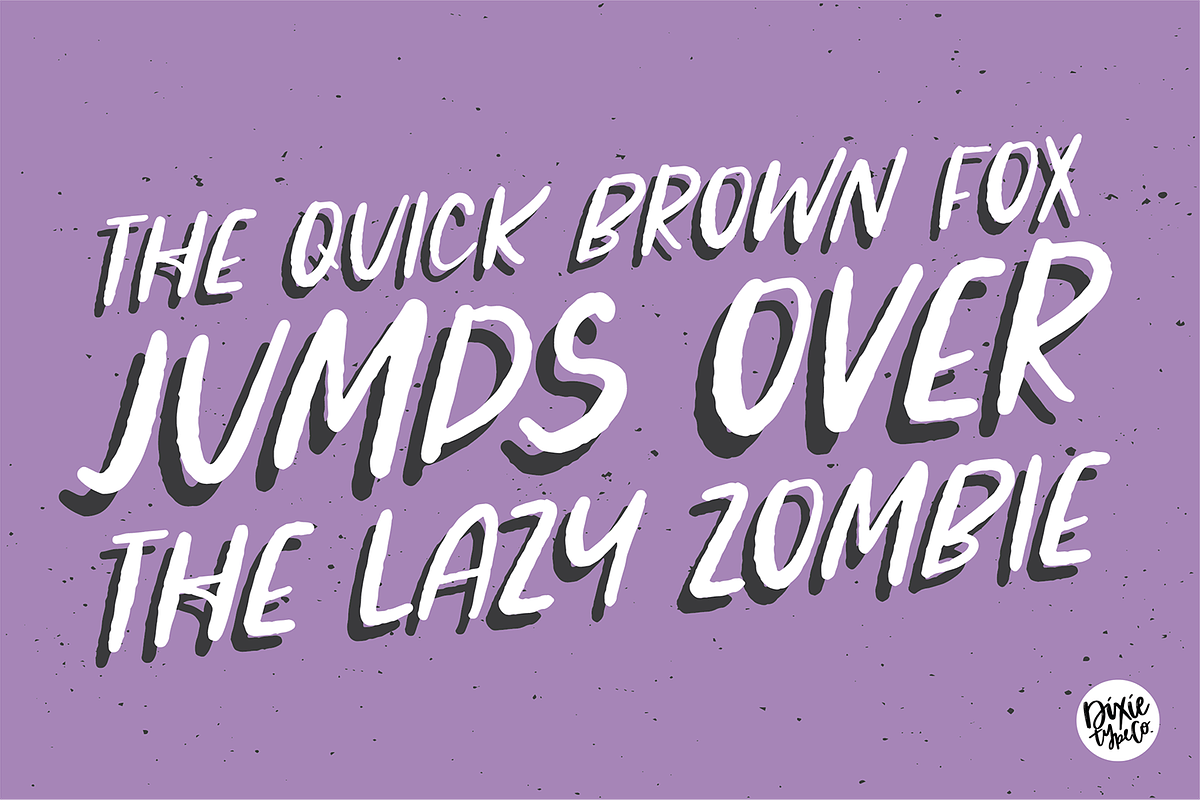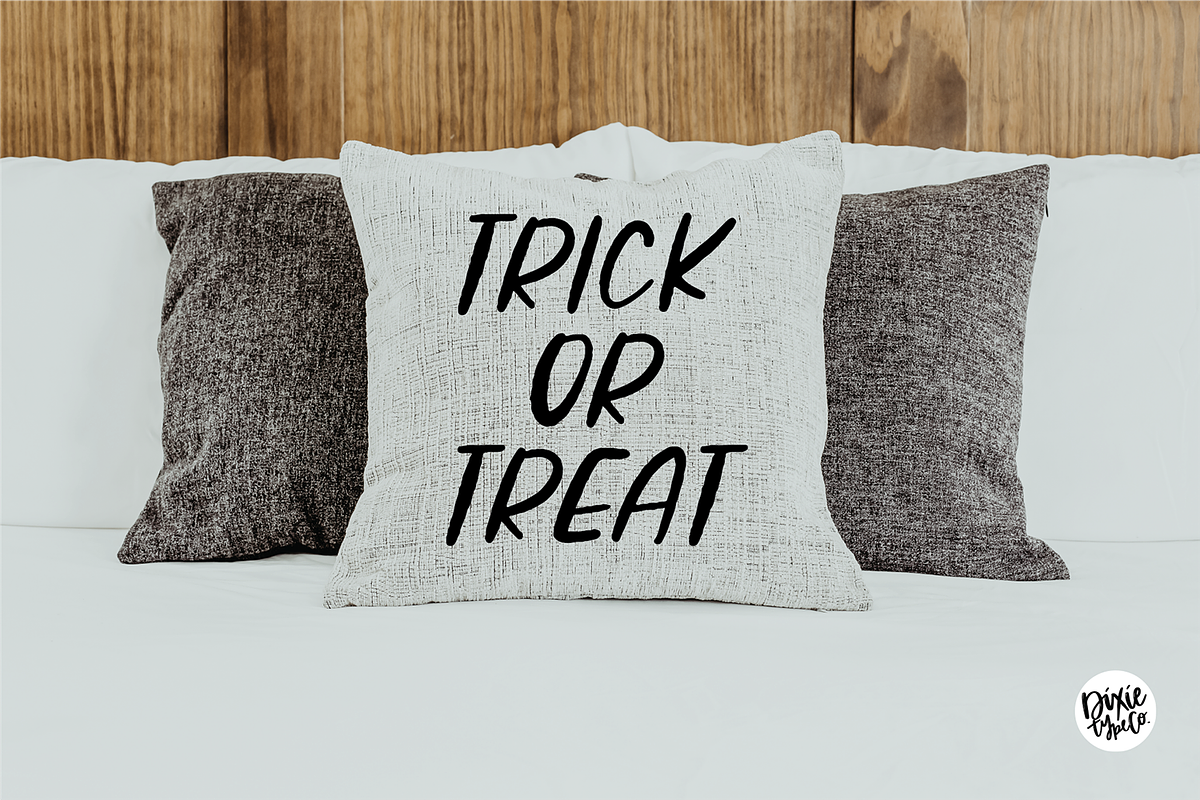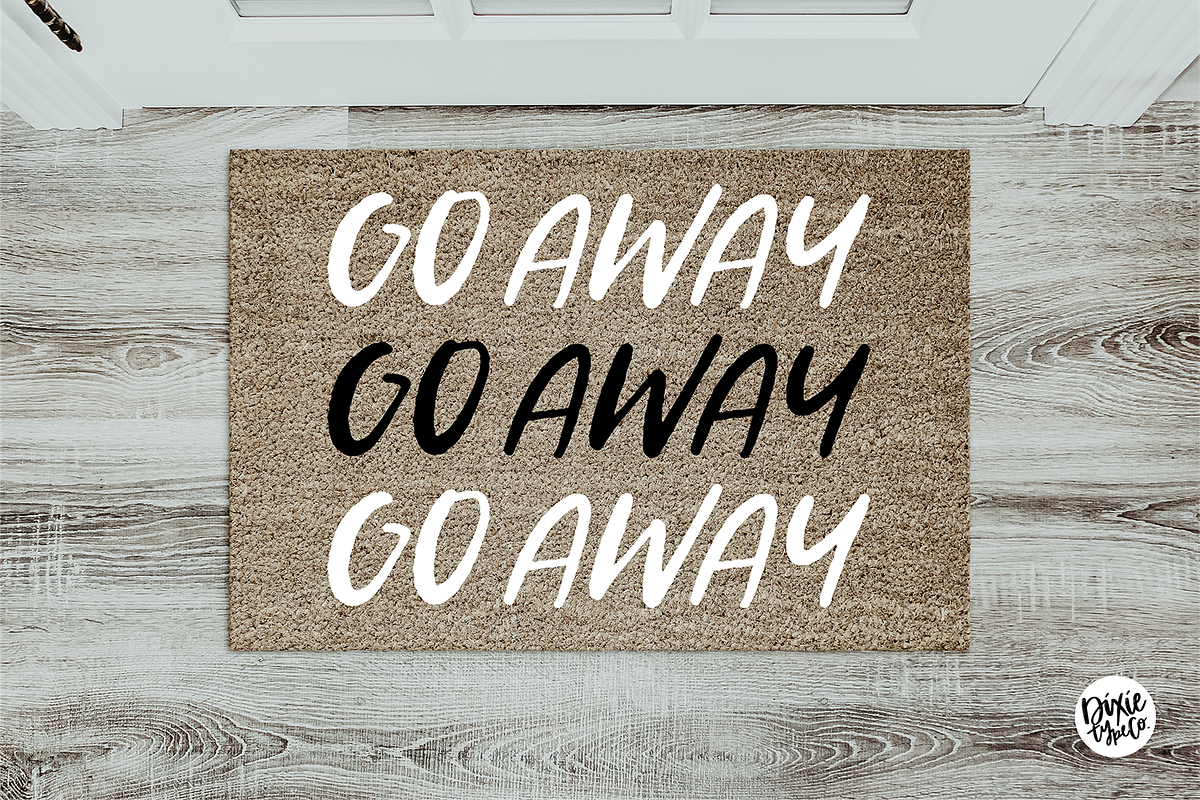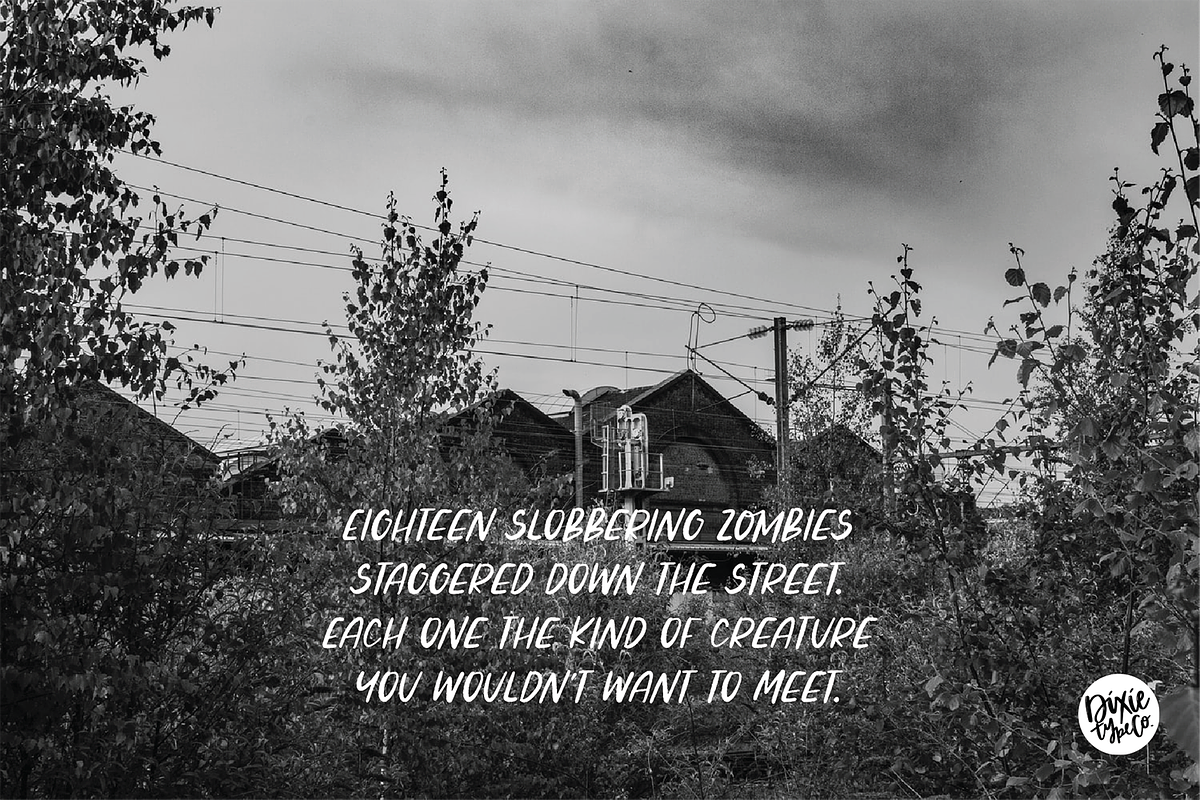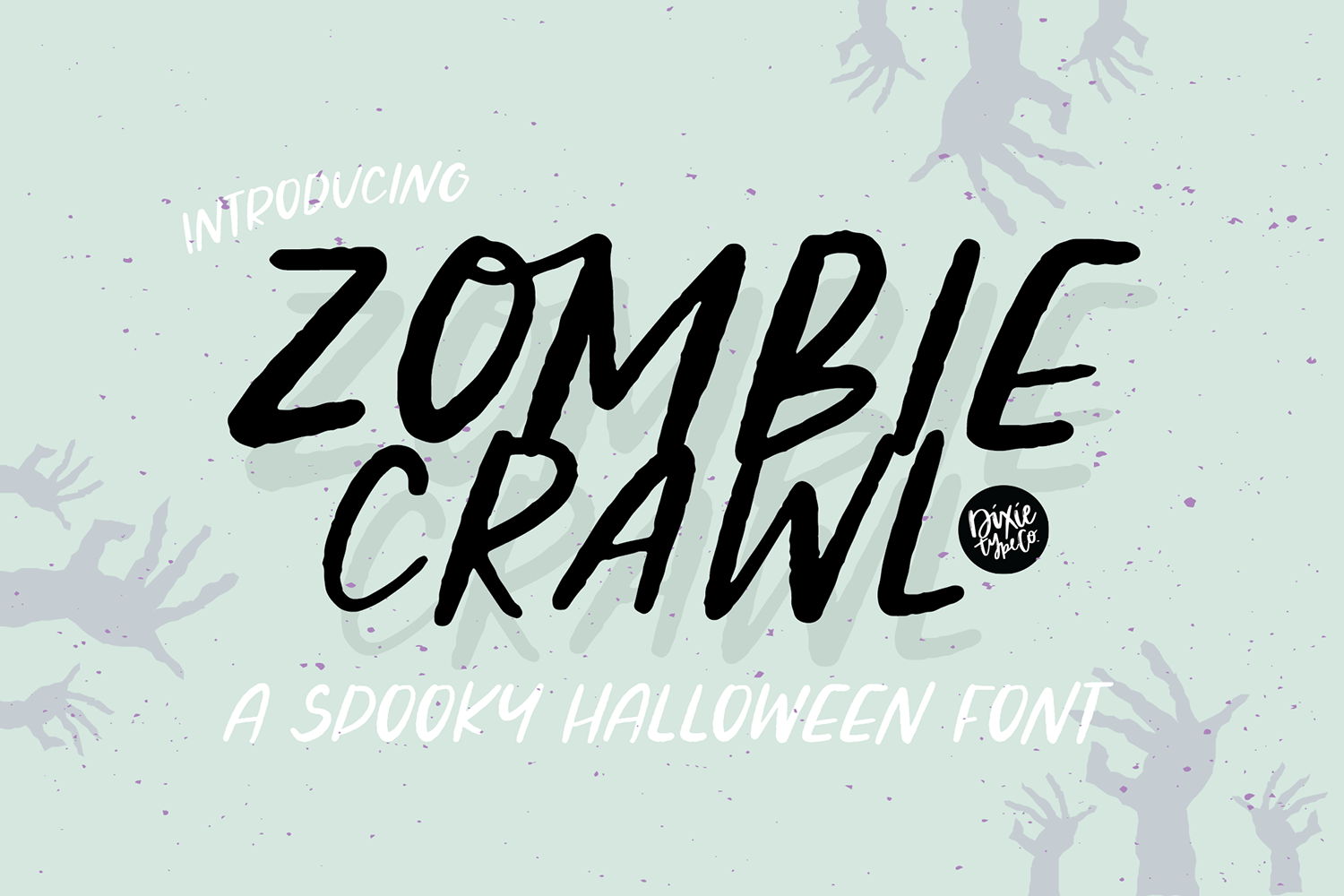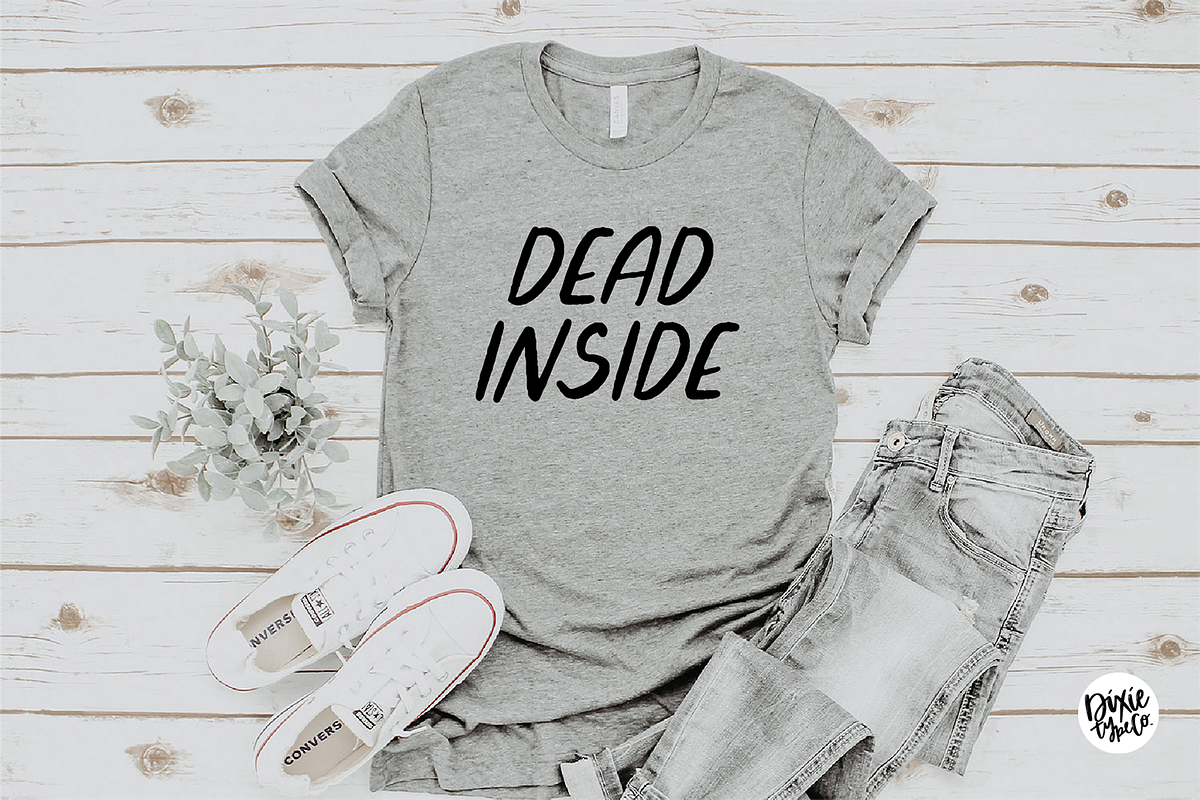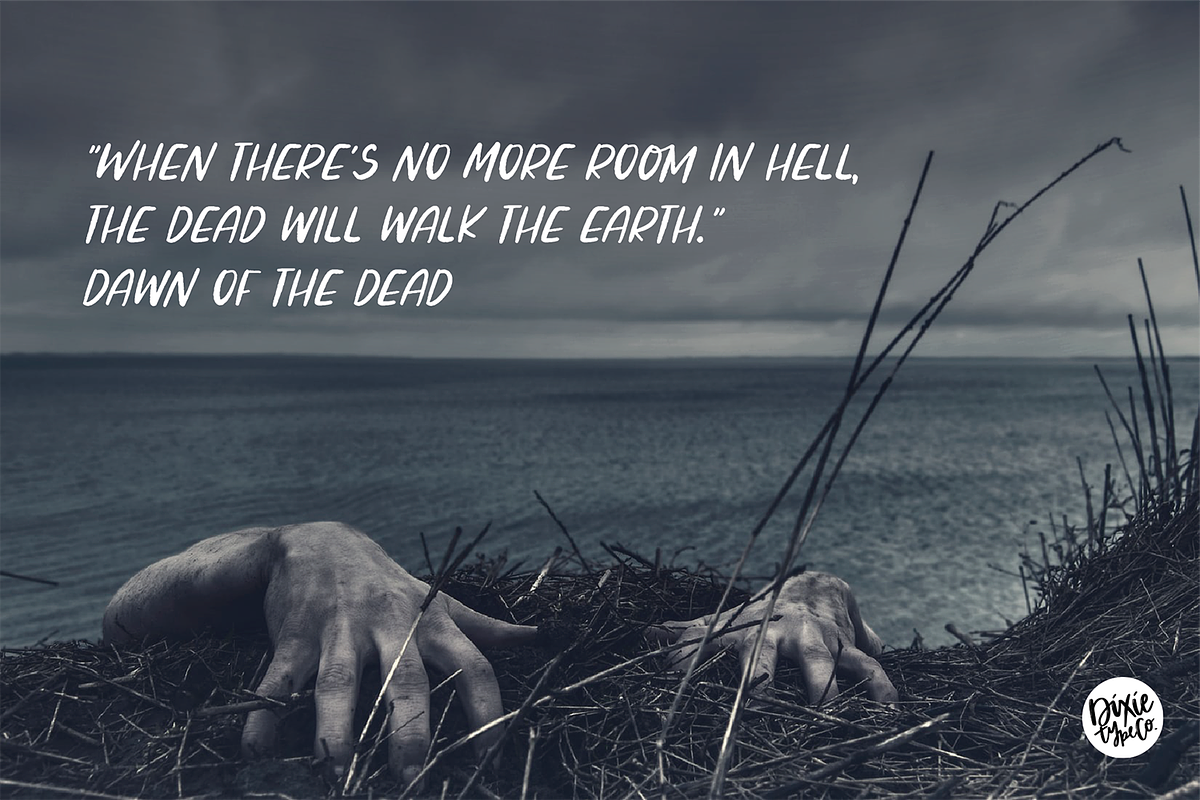
ZOMBIE CRAWL Halloween Font
"Zombie Crawl"
A Distressed Halloween Handwriting Font
{ A typographic font hand lettered with love by Dixie Type Co. }
This is an installable font that will work great with your Halloween party invitations, web graphics, and other halloween decor. This font is cuttable, but keep in mind the edges are slightly distressed.
This font comes with all caps letters, numbers, basic punctuation, and couple extra characters.